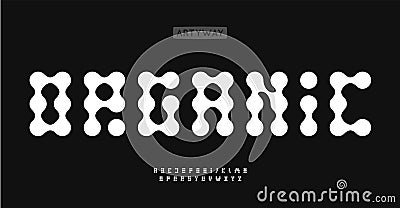
Fluid Dots Font, Letters With Smooth Connected Circles, Smooth Organic Tech Style Alphabet. Soft Rounded Typographic Vector Illustration
Fluid dots font, letters with smooth connected circles, smooth organic tech style alphabet. Soft rounded typographic Vector Illustration
Fluid dots font, letters with smooth connected circles, smooth organic tech style alphabet. Soft rounded typographic #359695148
Fluid dots font, letters with smooth connected circles, smooth organic tech style alphabet. Soft rounded typographic design. Creative typography. Vector typeset